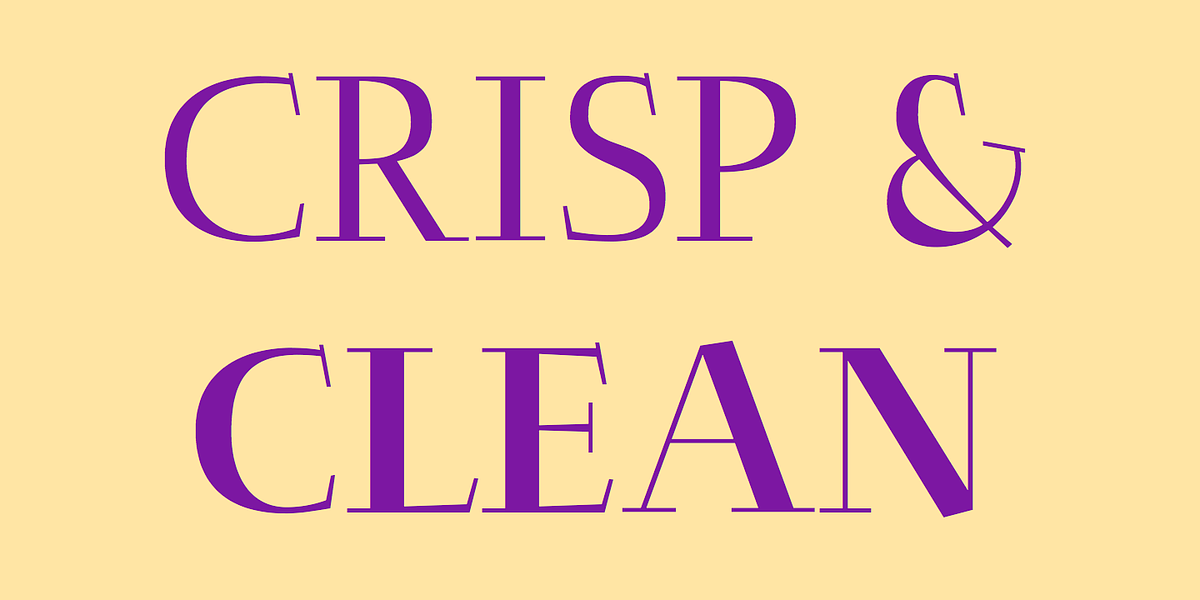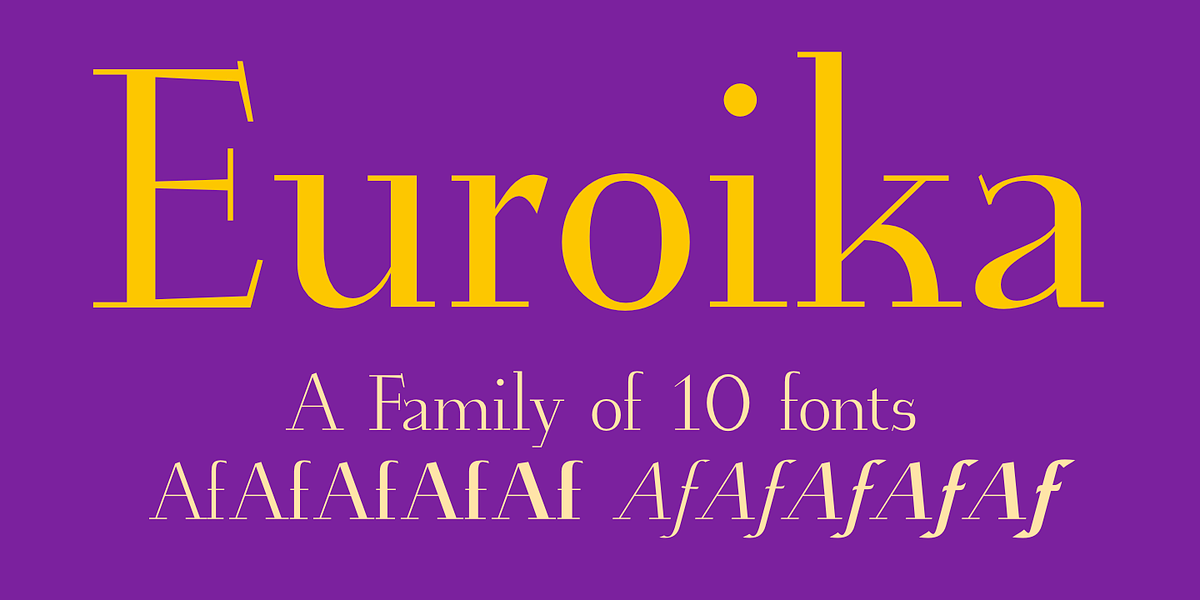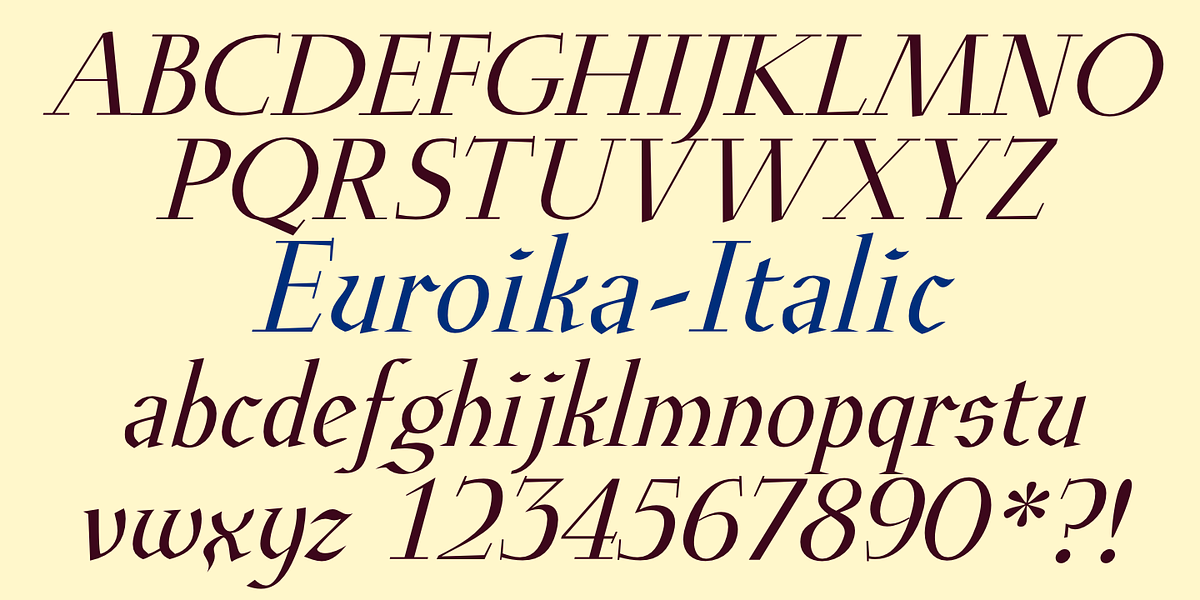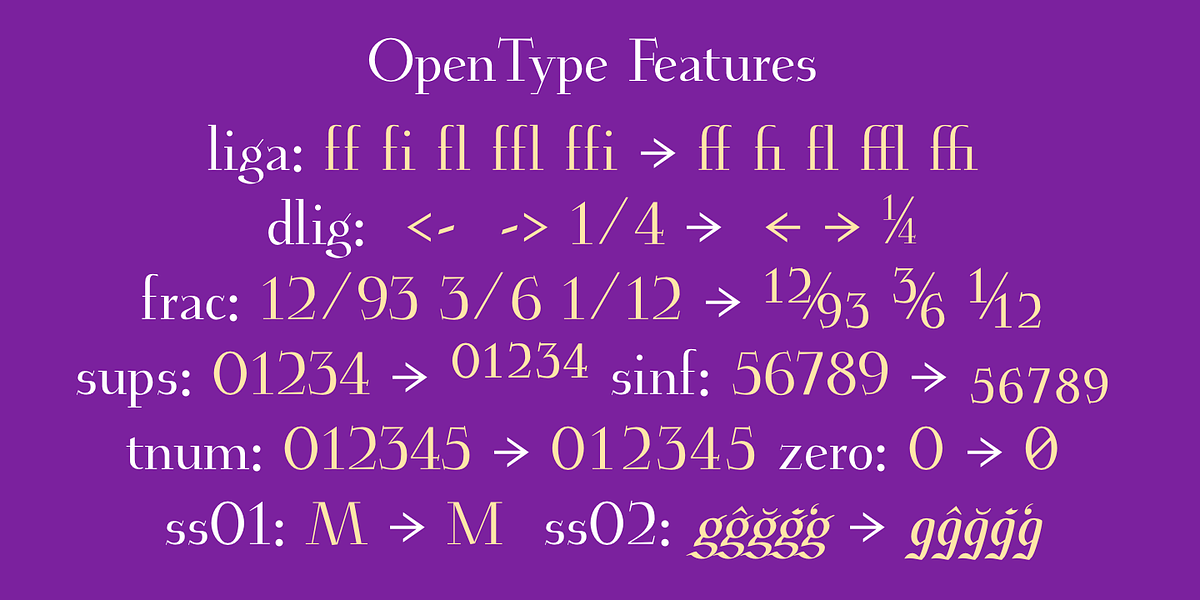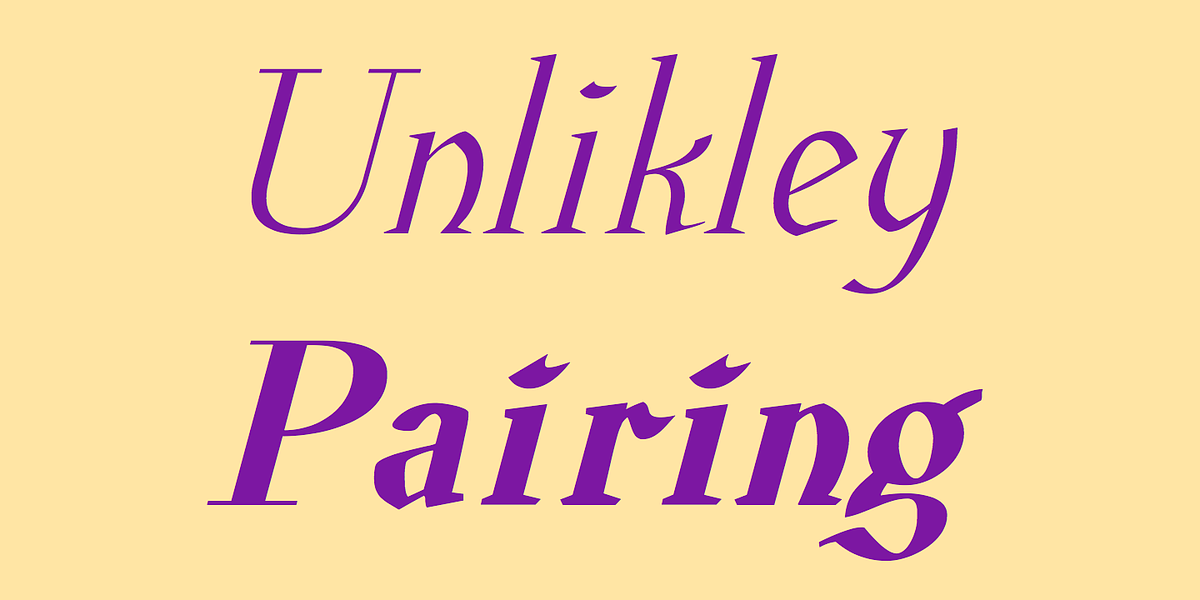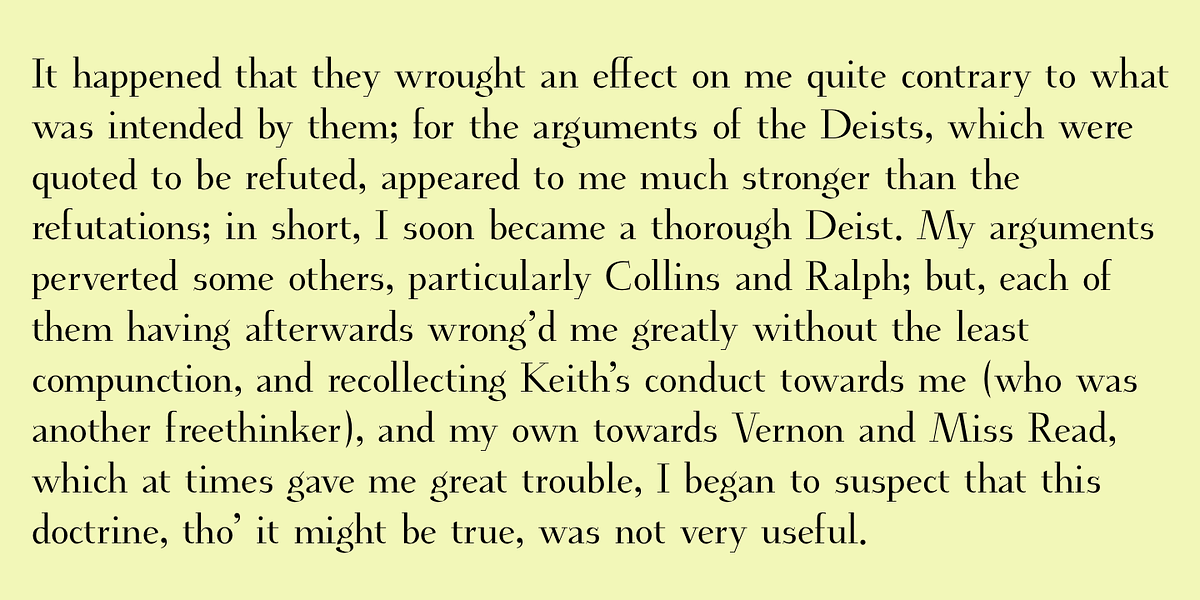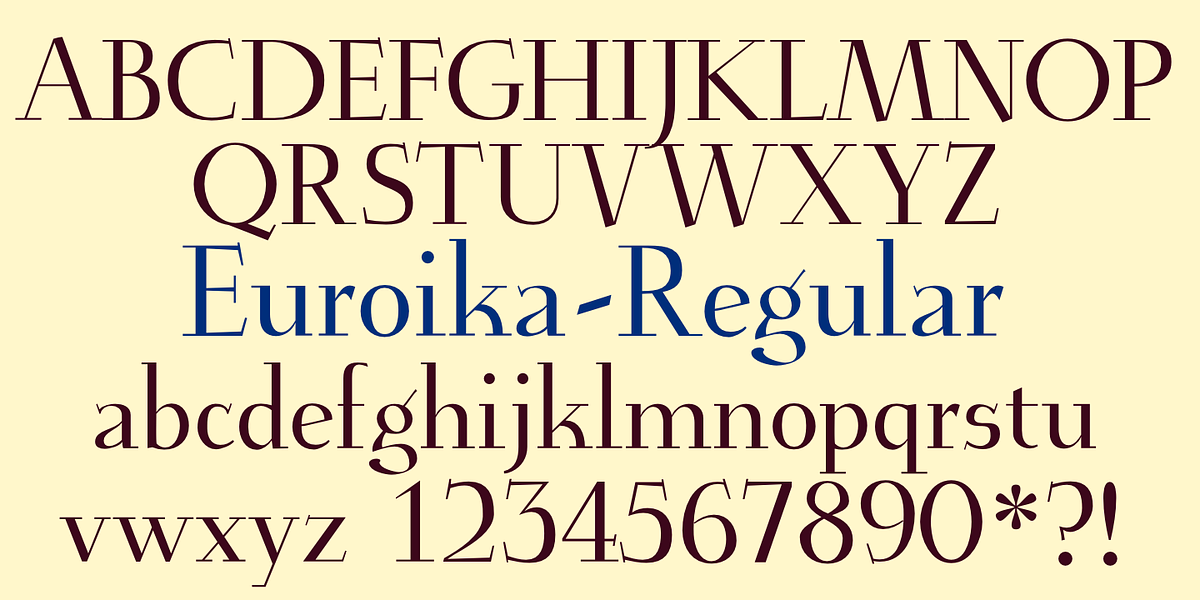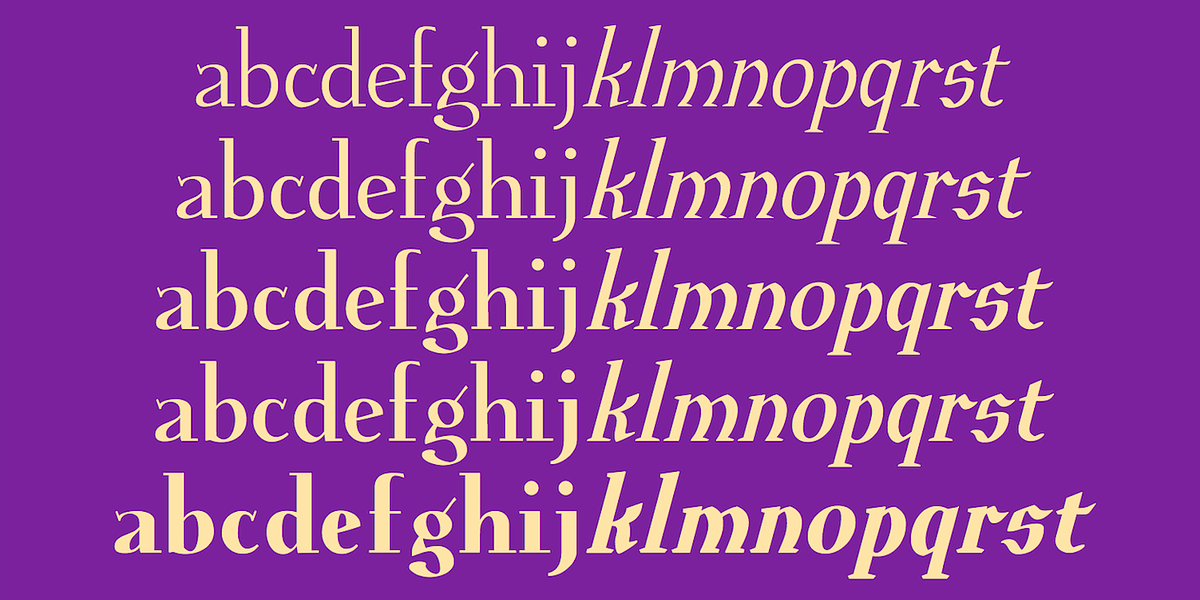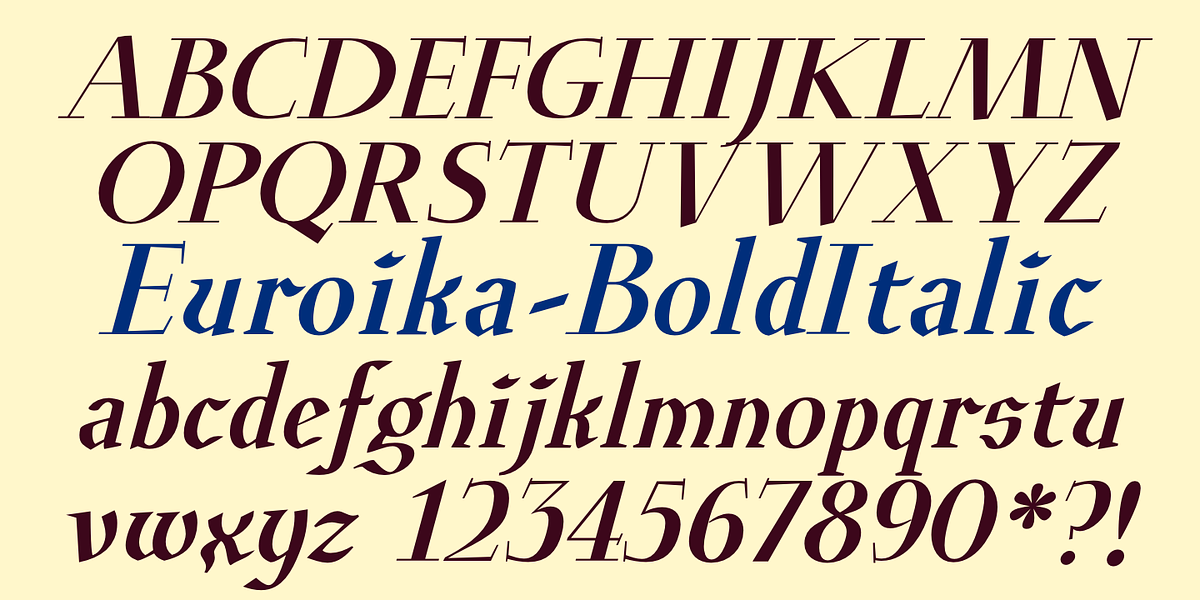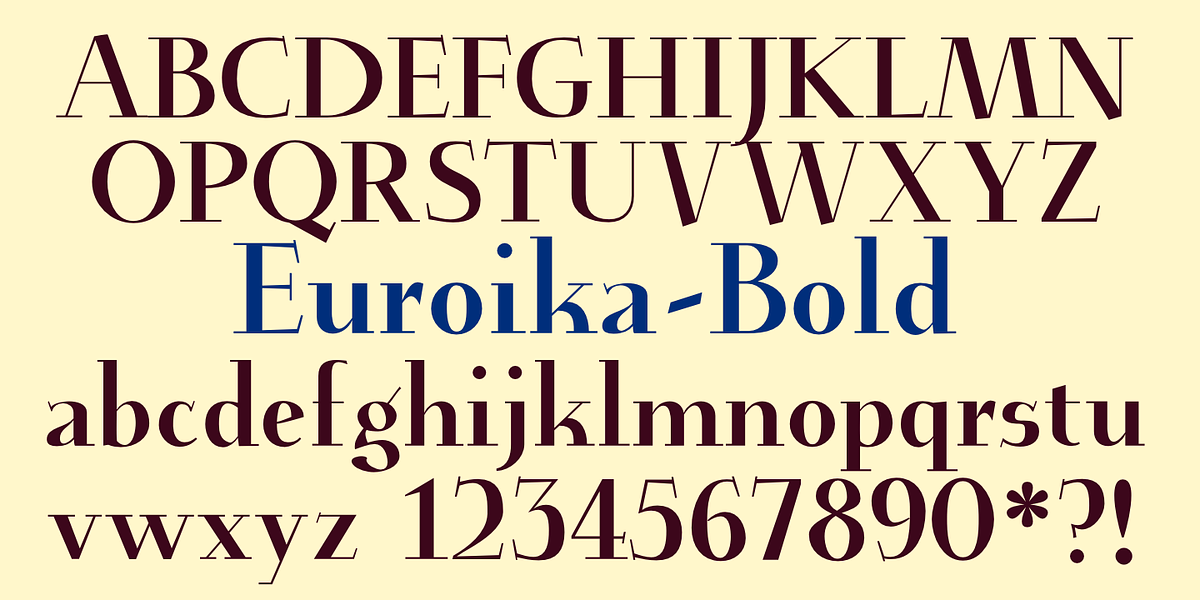
Euroika
Euroika is a modern serif font characterized by its high contrast between thick and thin strokes. The lowercase letters have a noticeably small x-height. The font family includes ten members, suggesting a range of weights.